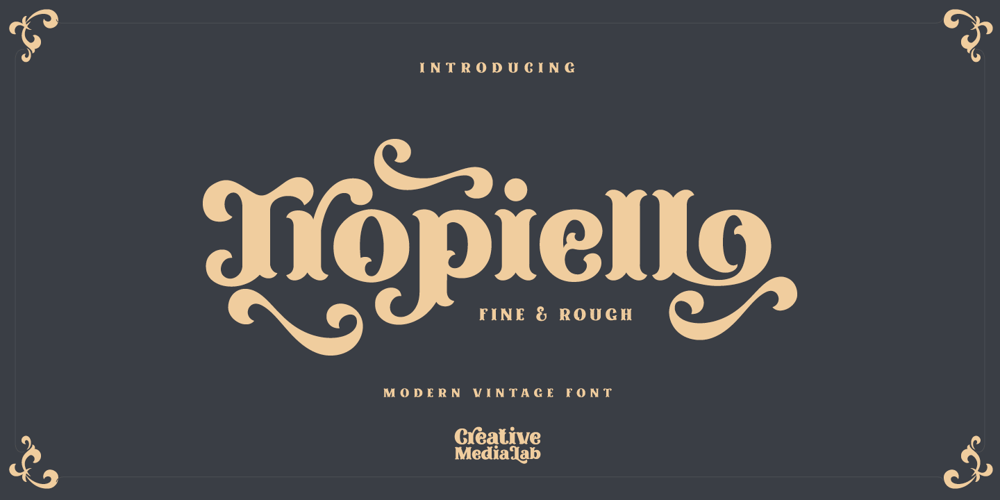
Tropiello Font Family was designed by Kadek Mahardika and published by Creativemedialab. Tropiello contains 2 styles and family package options. The beautiful vintage font Tropiello comes in a Fine and Rough style with tons of stylistic alternates and ligatures that will give a unique and modern look on your design projects. Or use it as a Display font on a poster, or logo, menu, clothing brand, fashion brand title, tattoo lettering, Christmas greetings and much more. How to access alternate? Simply copy and paste the glyph in the pdf alternates character map into your chosen software Adobe Photoshop go to Window – glyphs Adobe Illustrator go to Type – glyphs